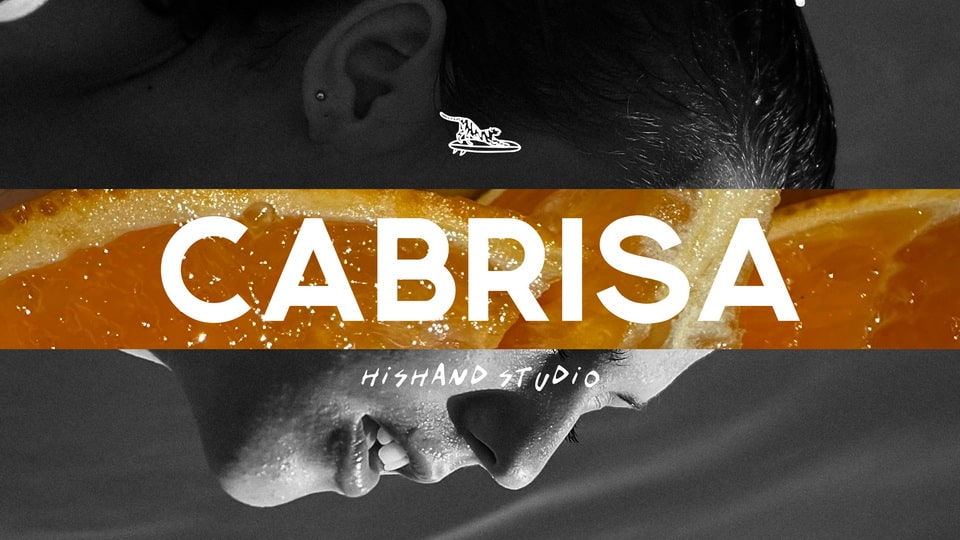
Download Cabrisa Duo font, a stylish typeface, featuring a clean sans serif and a natural handwritten script. Perfect for modern branding, social media, and editorial use.